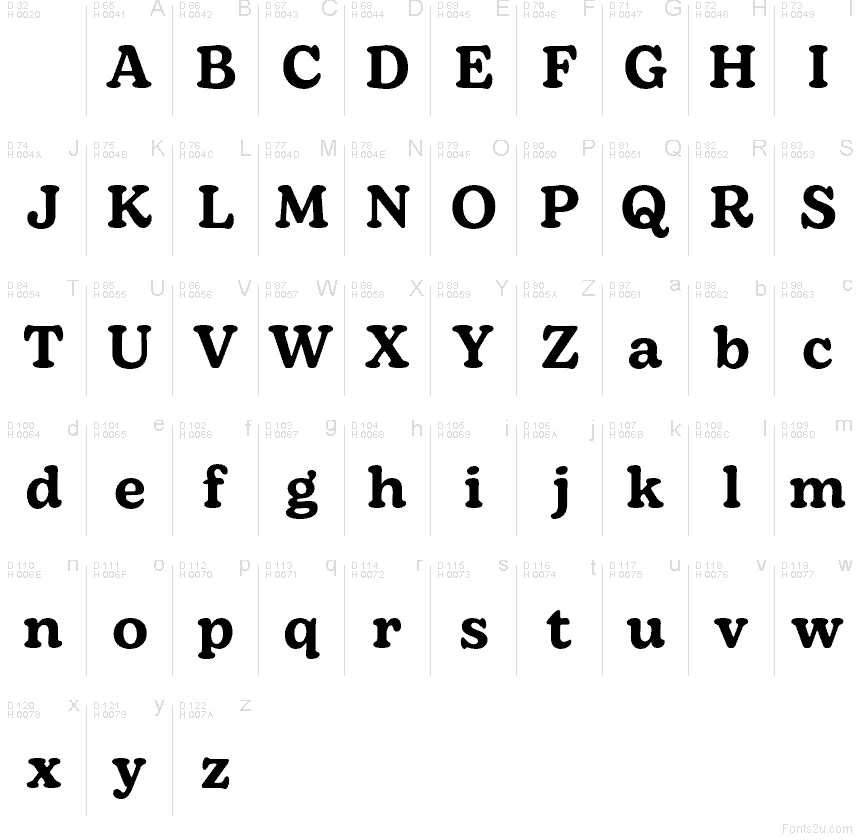
Bagio by Kereatype is a free retro serif display font with the soft, swollen rhythm of 1970s lettering. The letters feel plush and slightly bouncy, with thick rounded forms, compact serifs, and teardrop-like details that give the lowercase a friendly, poster-minded pull.
That makes this free font a natural pick for packaging, cafe branding, music flyers, magazine cover lines, and title cards where a little nostalgia helps set the tone. It also suits short logos and big wordmarks especially well, because the heavy curves and quirky joins keep even a simple word feeling warm and unmistakably styled.